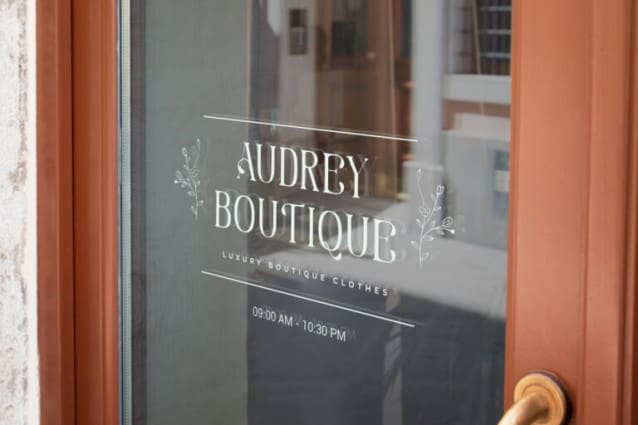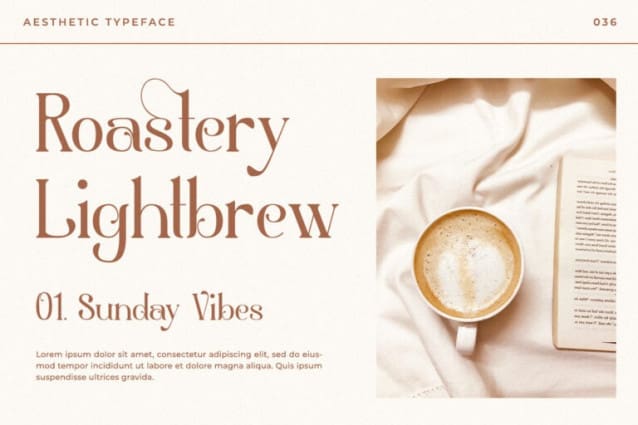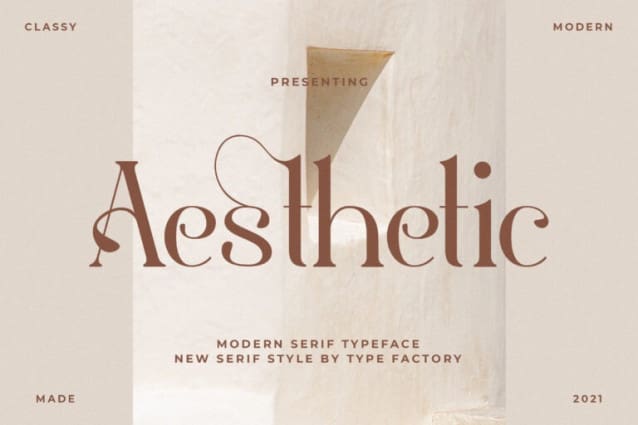
Aesthetic Serif Typeface
Aesthetic Serif Typeface is a modern serif font, that features a simple and minimalist feel. This font will brighten up each of your designs. The only limit is your imagination!